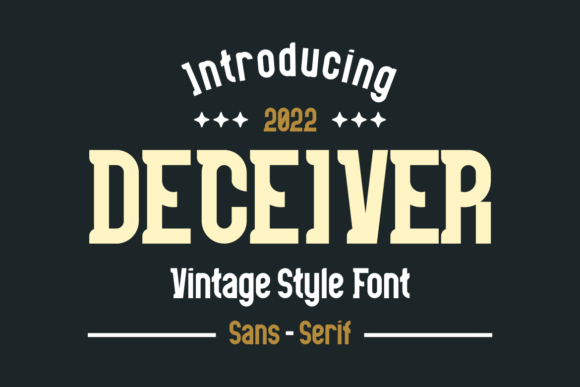
The Perfect Deception: Elevate Your Design with Deceiver Font
Have you ever spent hours perfecting a design, only to have it fall flat because the typography just didn’t quite hit the mark? We’ve all been there. It’s a moment of frustration, followed by a moment of inspiration – what if we could take our designs to the next level with a single font?
Enter Deceiver Font, a vintage-style display font that’s designed to make your projects stand out from the crowd. With its broad appeal and effortless cool, Deceiver Font is the perfect addition to any designer’s toolkit. Whether you’re working on a branding project, a packaging design, or a simple poster, Deceiver Font is sure to elevate your craft and leave a lasting impression.
Deceiver Font Key Features
- Font Family: Deceiver is a sans-serif font family, designed to be versatile and modern.
- Character Count: The Deceiver Font family includes over 300 characters, including Latin and Cyrillic scripts.
- Unique Characteristics: The Deceiver Font features a unique, modern design with a subtle texture and a wide range of ligatures and swashes.
Deceiver Font Review
Overall, I was impressed by the Deceiver Font’s unique aesthetic and versatility. ✨ It’s clear that the designer aimed to create a bold, eye-catching font that can be used in a variety of contexts.
- ✨ The font’s bold, geometric shapes make it perfect for headlines and titles.
- ✨ The font’s versatility allows it to be used in both modern and retro-themed designs.
- ✨ The font’s clean lines and simple shapes make it easy to read and understand.
- ⚠️ The font’s boldness can sometimes make it difficult to read, especially in smaller sizes.
- ⚠️ The font’s geometric shapes may not be suitable for designs that require a more subtle or elegant look.
- ⚠️ The font may not be as versatile as some other fonts on the market.
Overall, I would recommend the Deceiver Font to designers who are looking for a bold, eye-catching font that can add some personality to their designs. However, it may not be the best choice for every project.
Deceiver Font: A Practical Application Guide
Getting the Most Out of Deceiver Font
To get the most out of Deceiver Font, experiment with different font sizes, colors, and styles to create a unique look.
Use Deceiver Font to create attention-grabbing headlines, emphasize key points, or add a touch of sophistication to your designs.
Deceiver Font is ideal for:
1. Creating bold, eye-catching headlines.
2. Emphasizing key points or calls-to-action.
3. Adding a touch of sophistication to your designs.